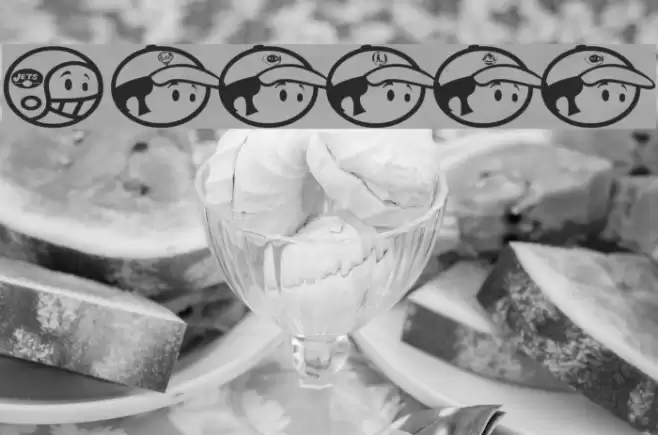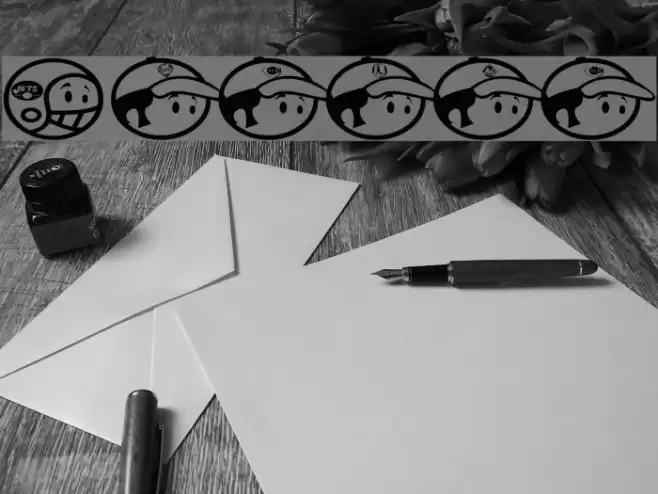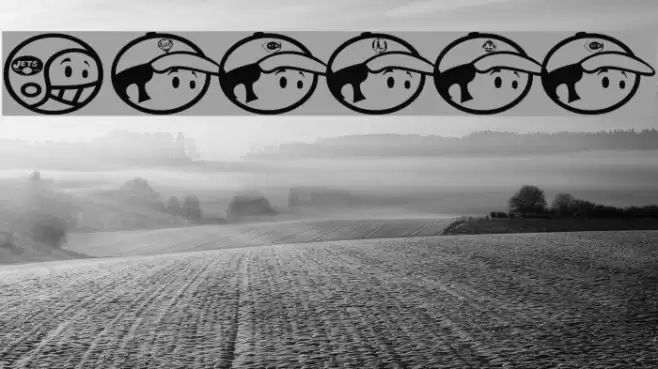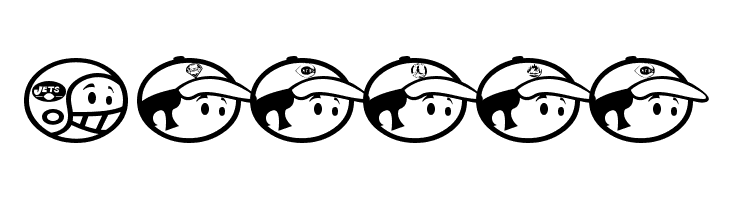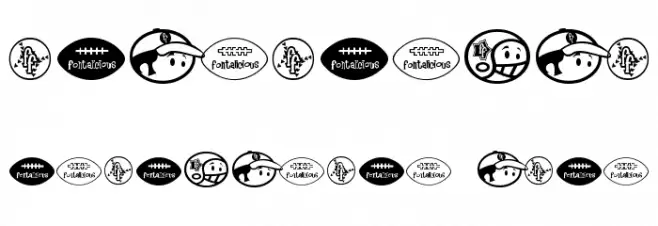
Sporto Font
Sporto Description
This is not a traditional font but rather a collection of playful, sports-themed icons. Each character is represented by a circular badge featuring various sports-related imagery, such as helmets, balls, and other athletic equipment. The style is cartoonish and whimsical, with bold outlines and simple, expressive designs. The icons are uniform in size and shape, creating a cohesive and visually engaging set. This collection is ideal for projects that require a fun and sporty aesthetic, offering a unique way to incorporate sports themes into design work.
A playful collection of sports-themed icons in a cartoonish style from Dingbats fonts.
- Proposed Projects: Ideal for sports-themed party invitations, children's educational materials, or playful branding for sports events.
- Use Case: Logos, Decorative elements